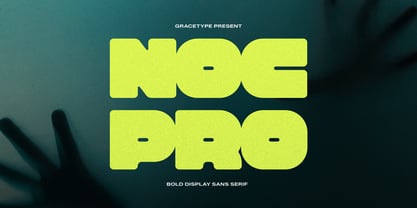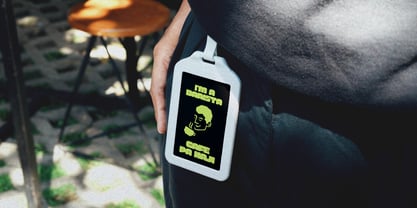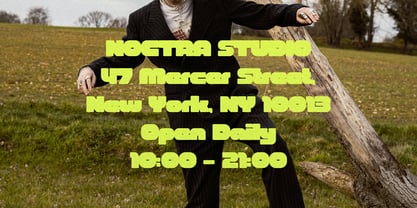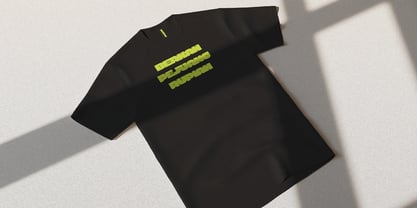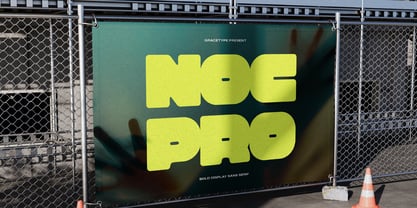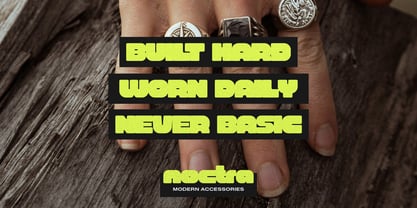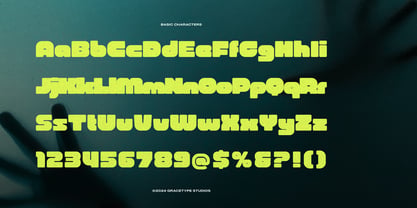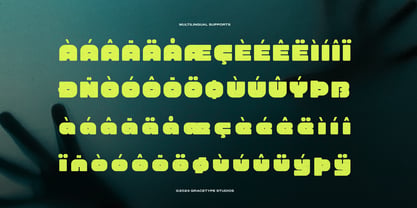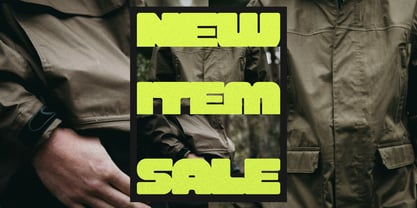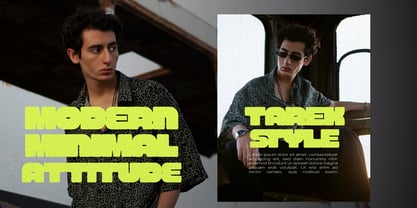
Nocpro
by Tini Fitriani
The Nocpro Font Family and published by Tini Fitriani. Nocpro contains 1 styles. More about this family
Nocpro | Bold Display Sans, from Gracetypestudio, suitable for any projects such as: logos, branding projects, homeware designs, product packaging, mugs, quotes, posters, shopping bags, t-shirts, book covers, name card, invitation cards, greeting cards, label, photography, watermark, special events, and all your other lovely projects that need a Sans taste.